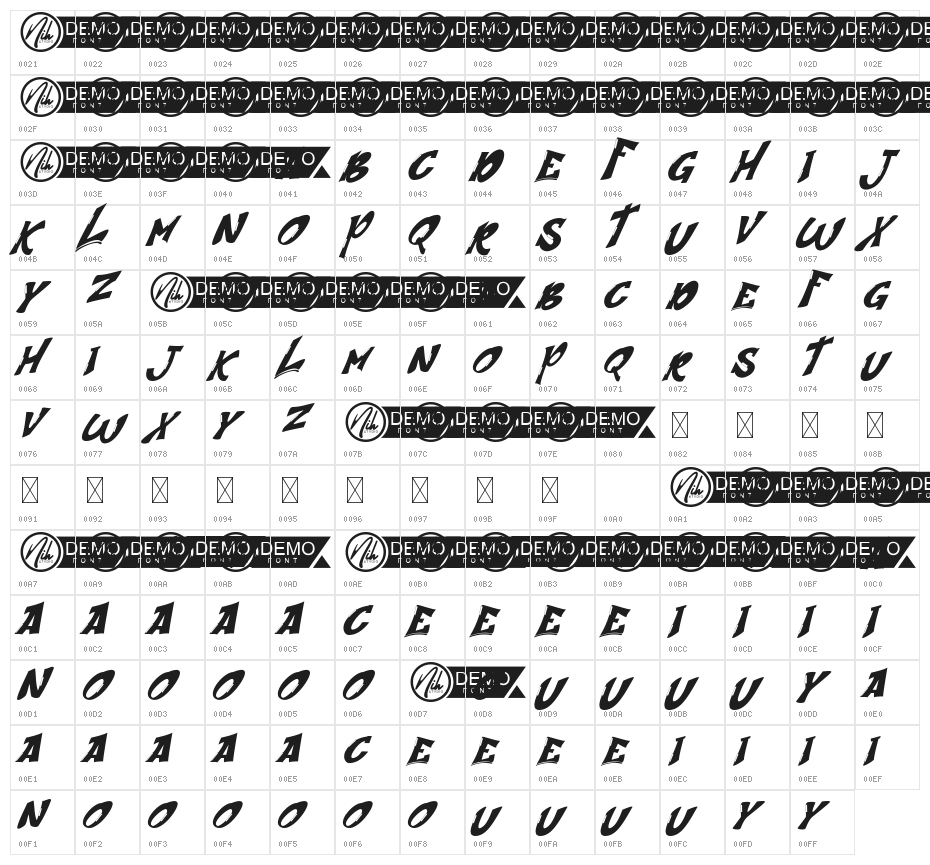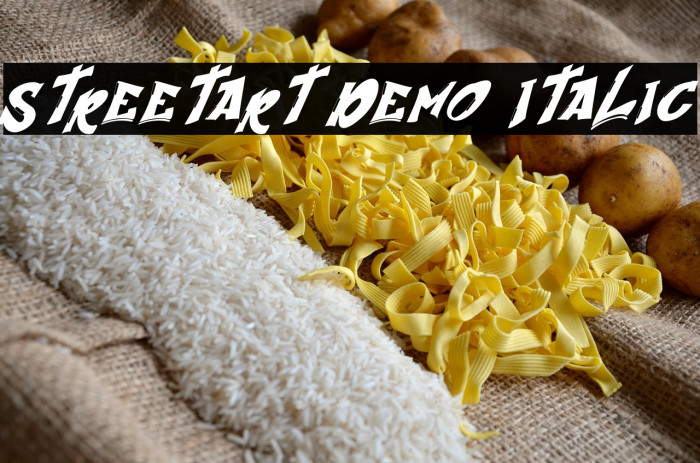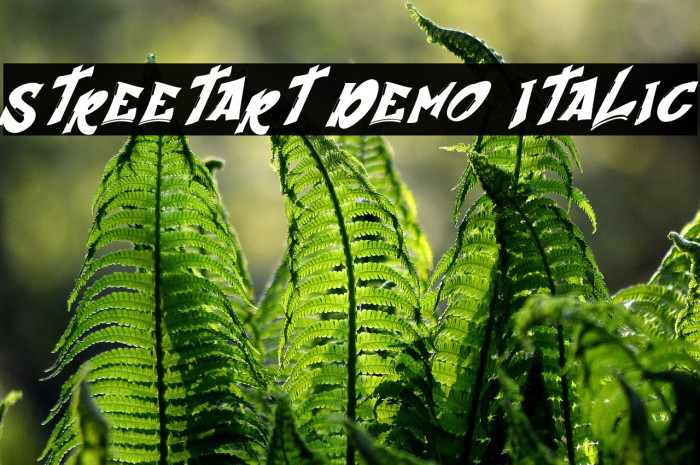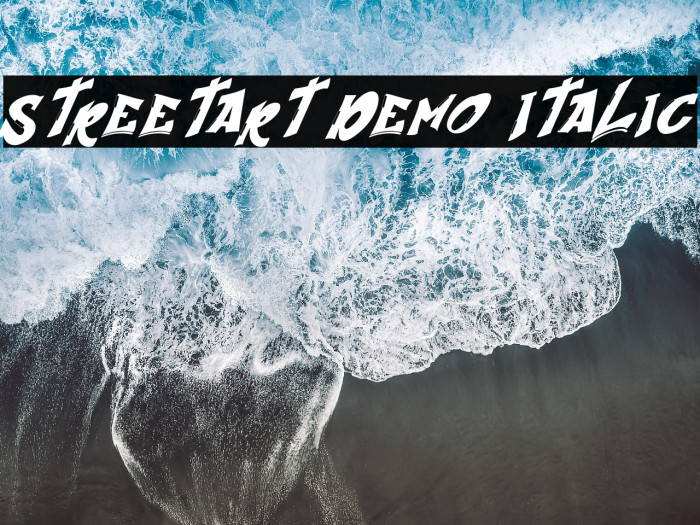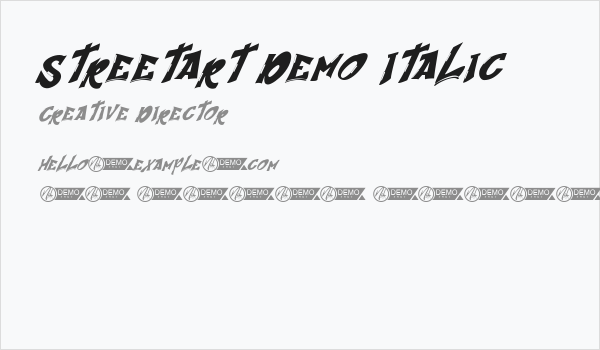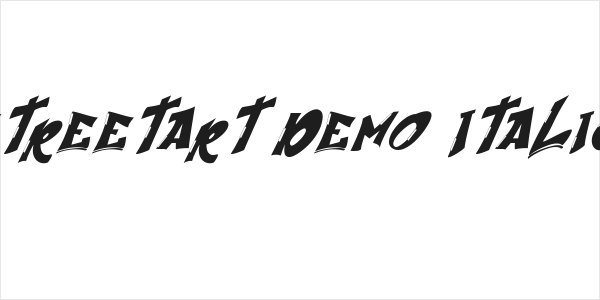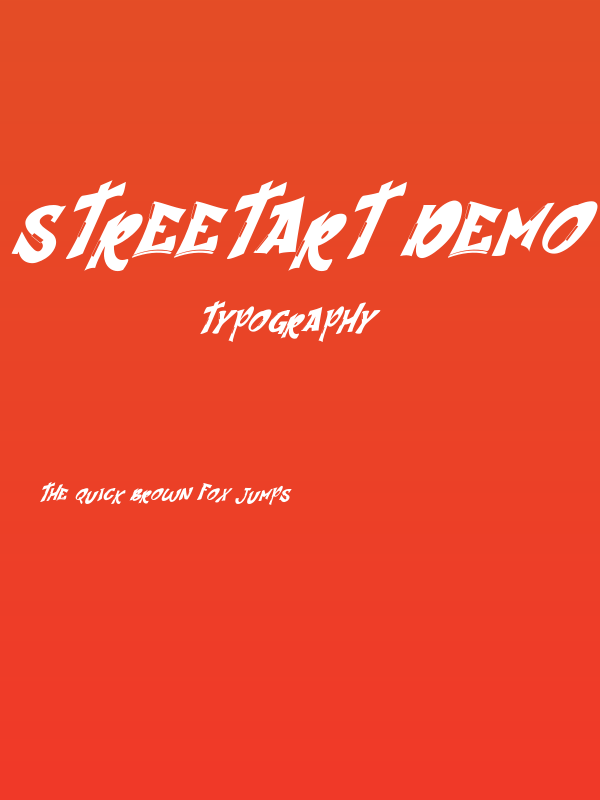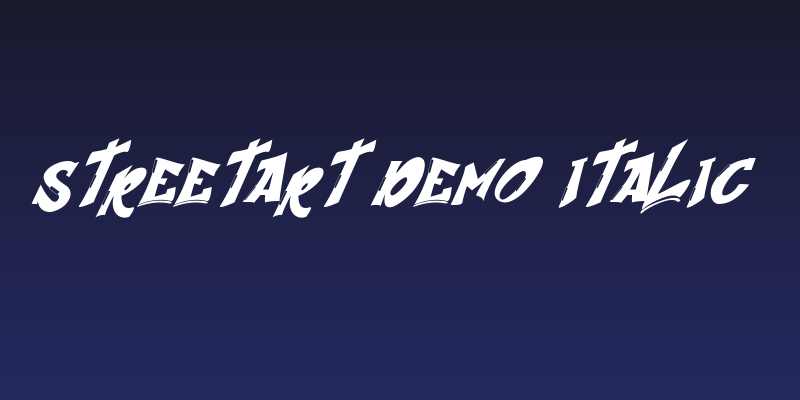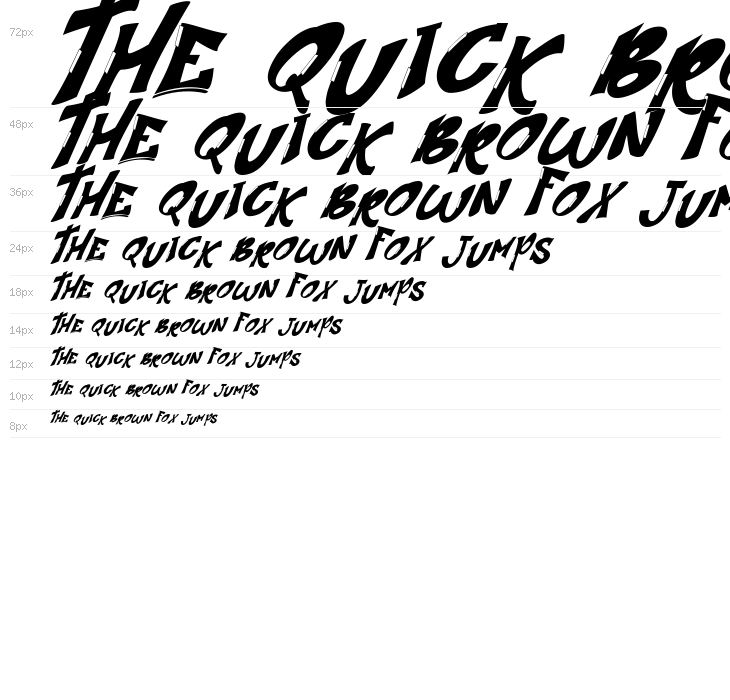
Streetart Demo Italic Font
Streetart Demo Italic Description
This font exudes a bold and dynamic street art vibe, characterized by its sharp, angular lines and italicized slant. The letters are crafted with a sense of movement and energy, reminiscent of graffiti styles. The uppercase and lowercase letters maintain a consistent style, with exaggerated strokes and a sense of urgency. The numbers and special characters follow the same aesthetic, ensuring a cohesive look across all text elements. This font is designed to stand out, making a strong visual impact with its unique and edgy appearance.
| Overall Style | Modern, Urban |
| Proposed Projects | Ideal for urban-themed designs, graffiti art projects, edgy branding, and eye-catching posters. |